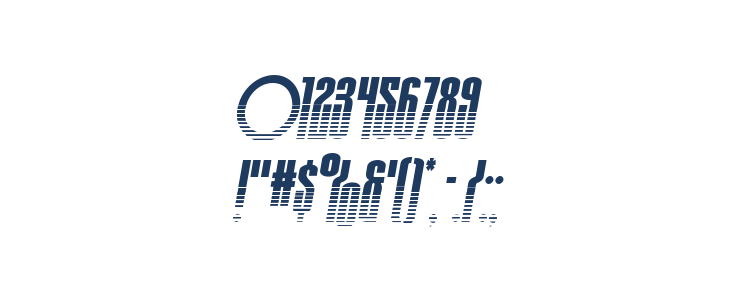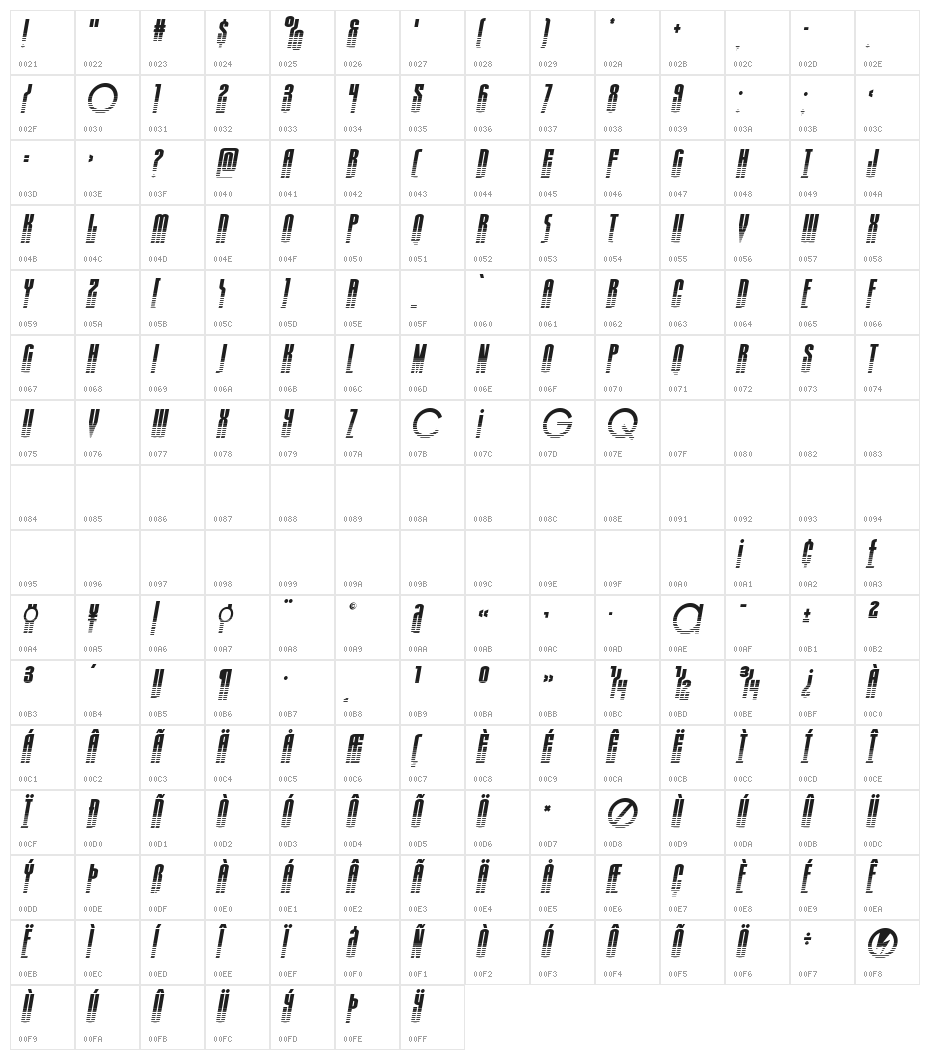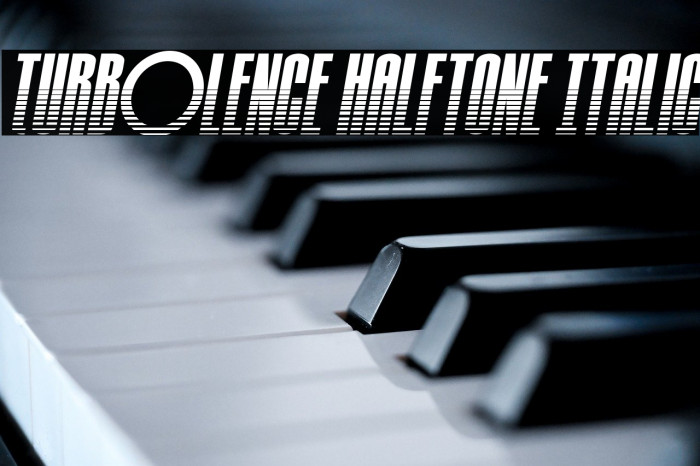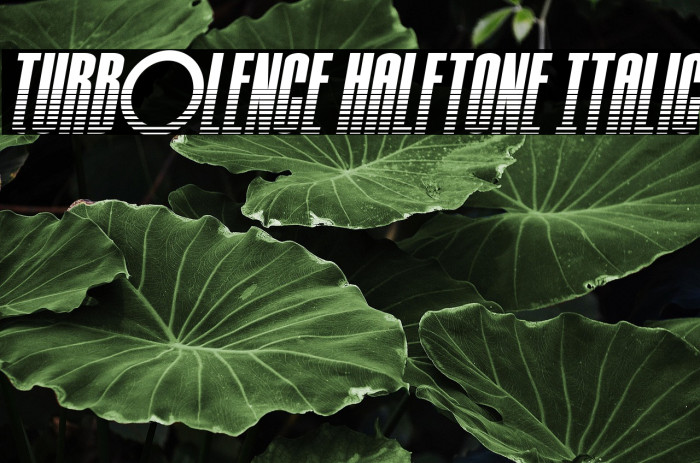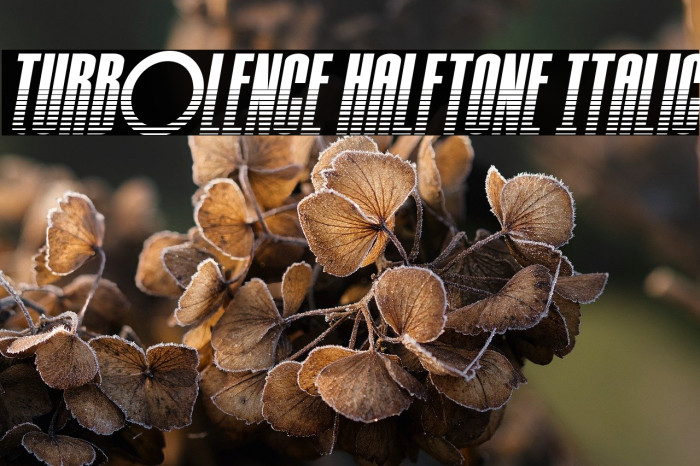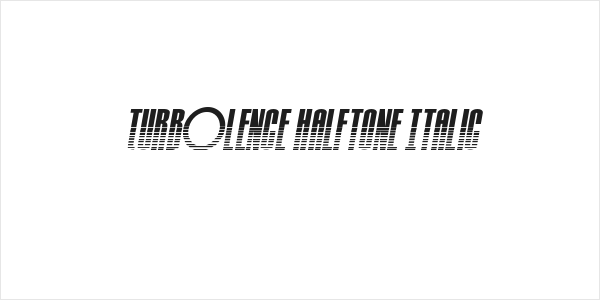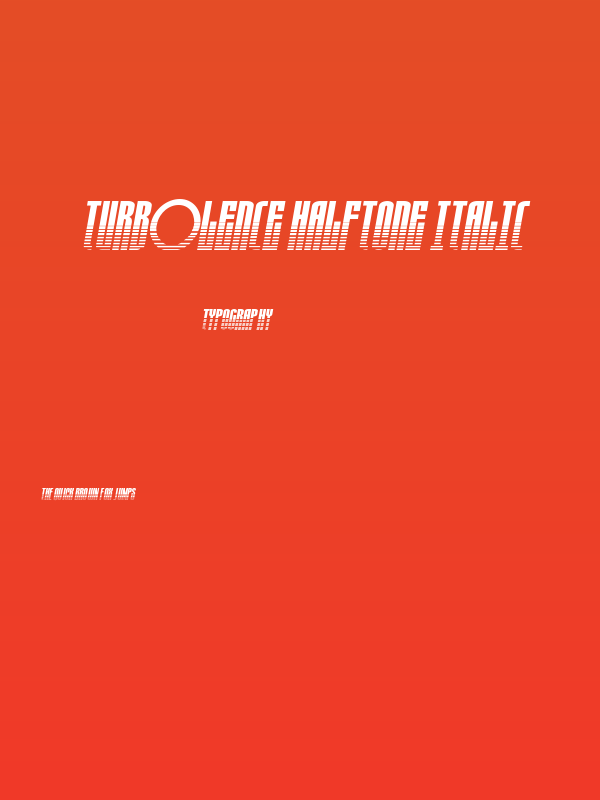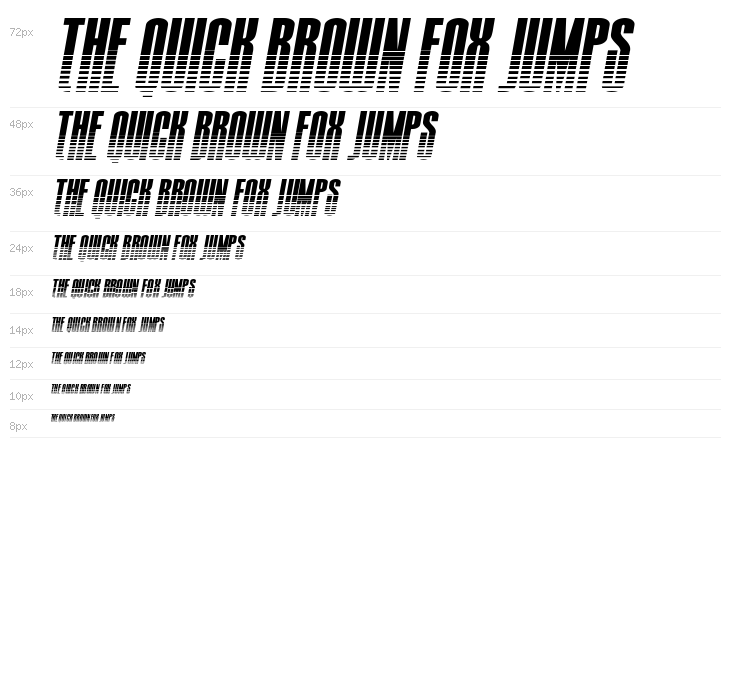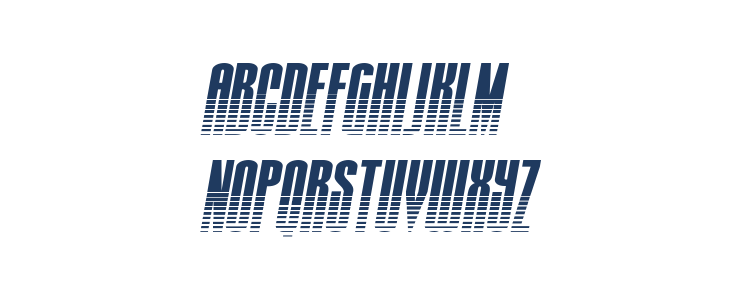
Turb0lence Halftone Italic Font
Turb0lence Halftone Italic Description
This font features a dynamic and energetic design with a halftone effect that creates a sense of movement and speed. The characters are italicized, adding to the impression of forward motion. The bold, condensed letterforms are composed of horizontal lines that vary in thickness, giving a unique textured appearance. This style is reminiscent of retro-futuristic aesthetics, making it suitable for projects that require a bold and eye-catching display. The font includes a full set of uppercase and lowercase letters, numbers, and a variety of special characters, ensuring versatility in design applications.